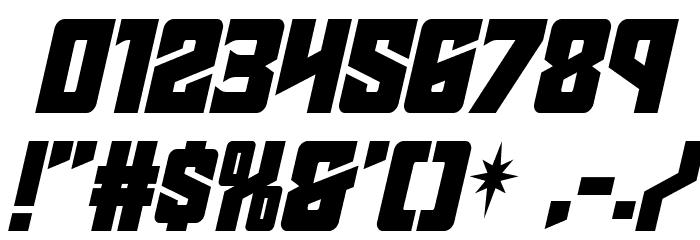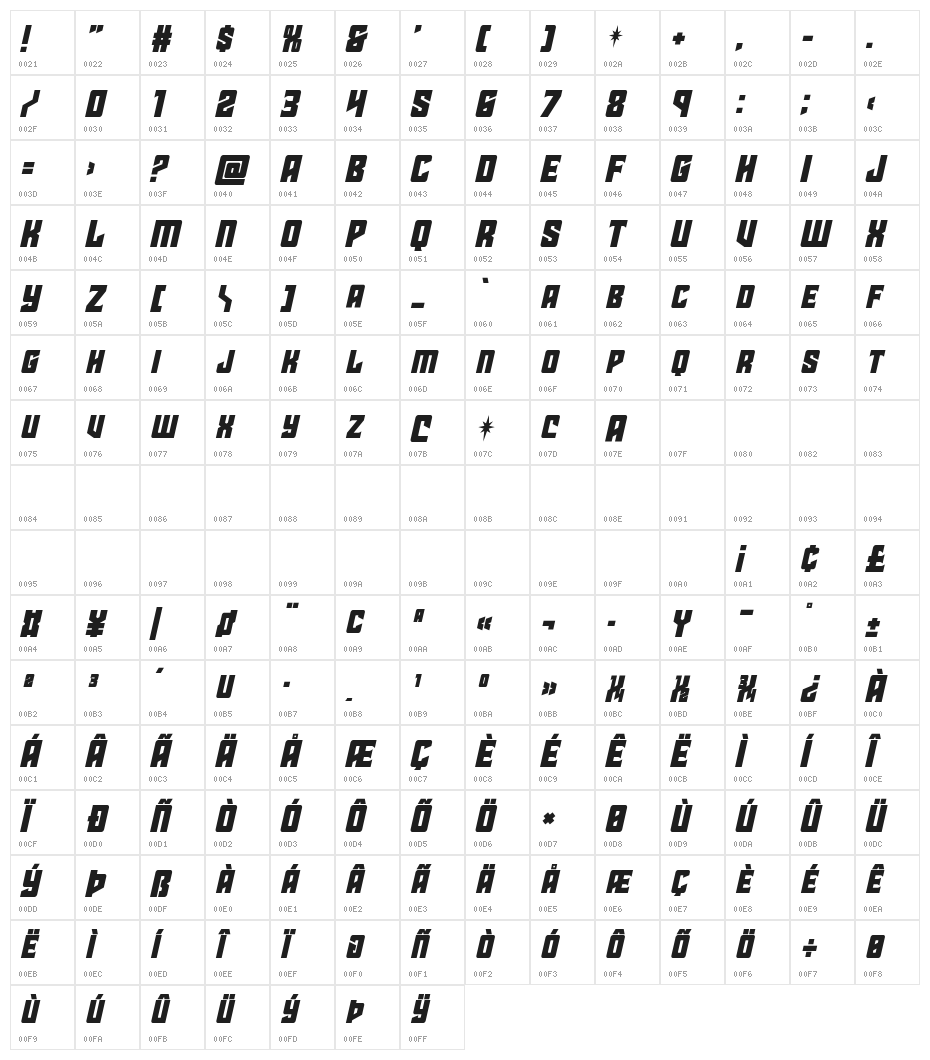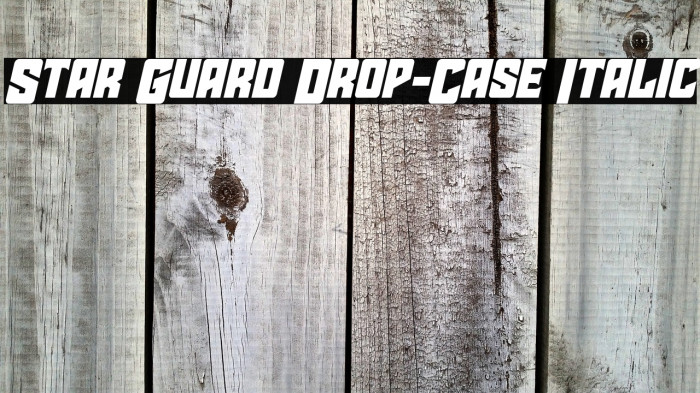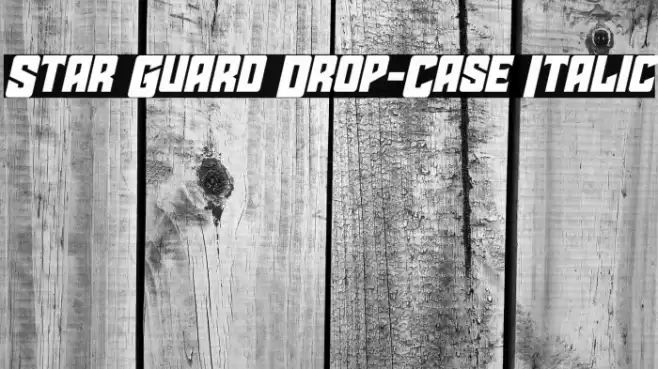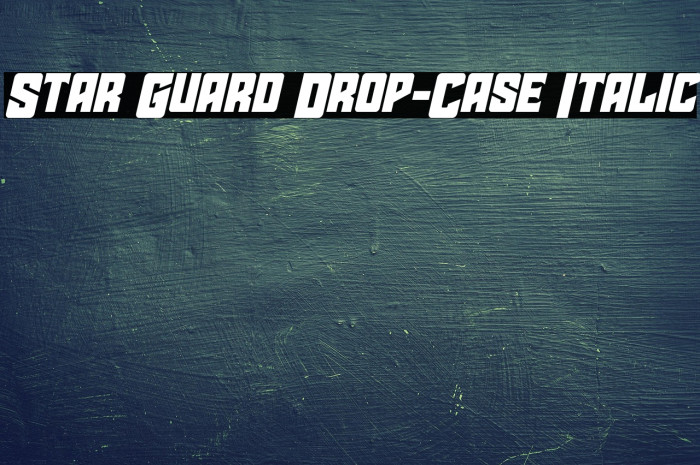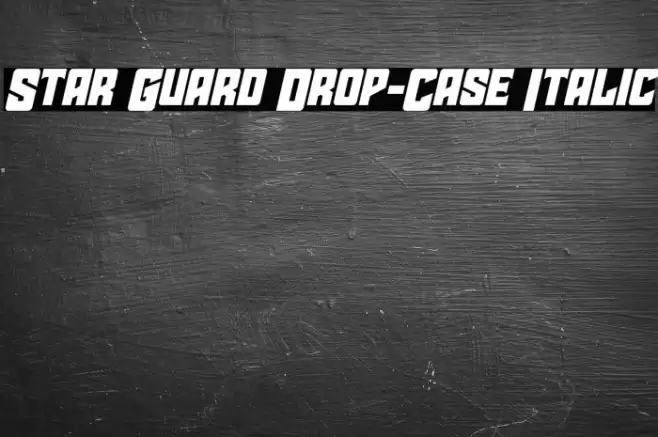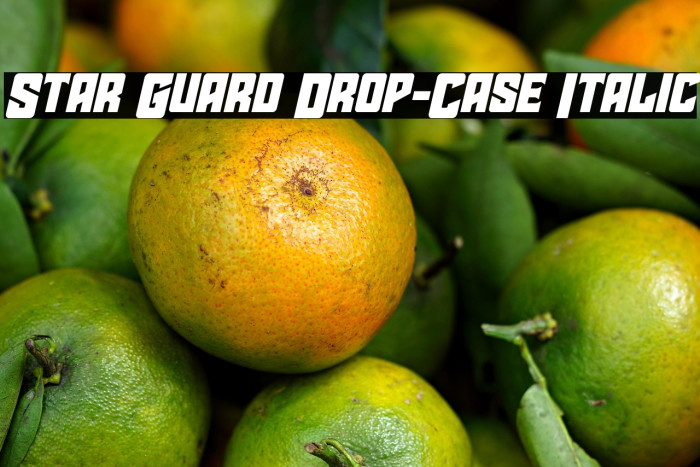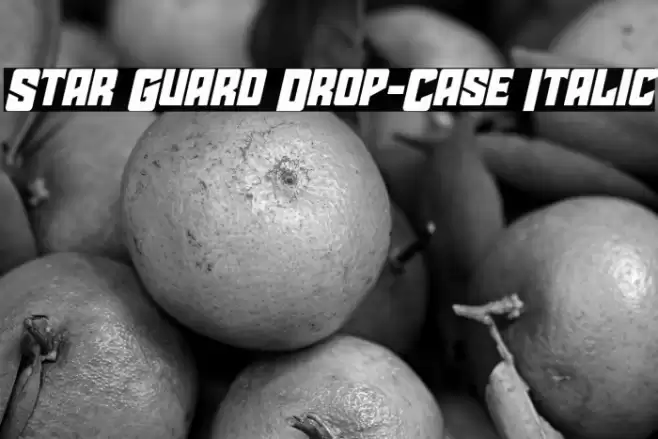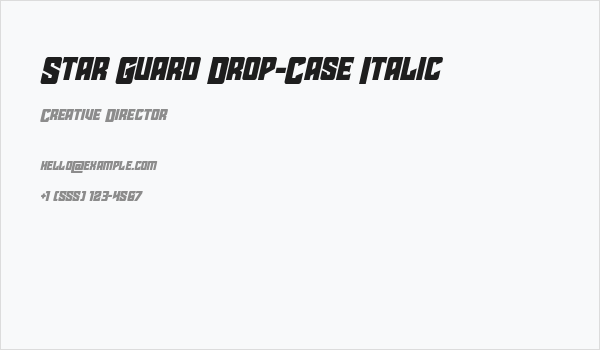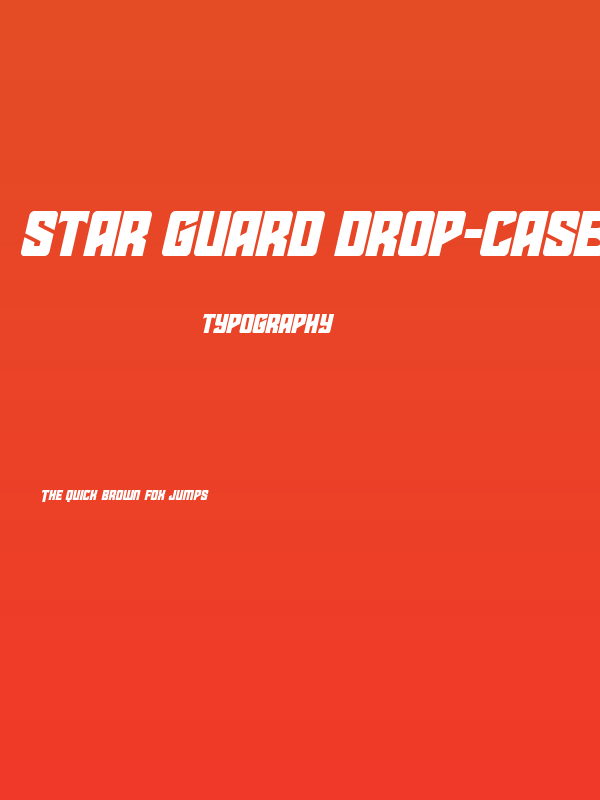
Star Guard Drop-Case Italic Font
Star Guard Drop-Case Italic Description
This font features a bold and dynamic style with sharp, angular edges and a strong italic slant. The characters are designed with a futuristic and aggressive appearance, making them stand out with their thick strokes and geometric forms. The uppercase and lowercase letters maintain a consistent style, while the numerals and special characters complement the overall design. The font's boldness and unique style make it ideal for projects that require a strong visual impact.
| Proposed Projects | Ideal for sports branding, video game titles, sci-fi movie posters, and dynamic logo designs. |